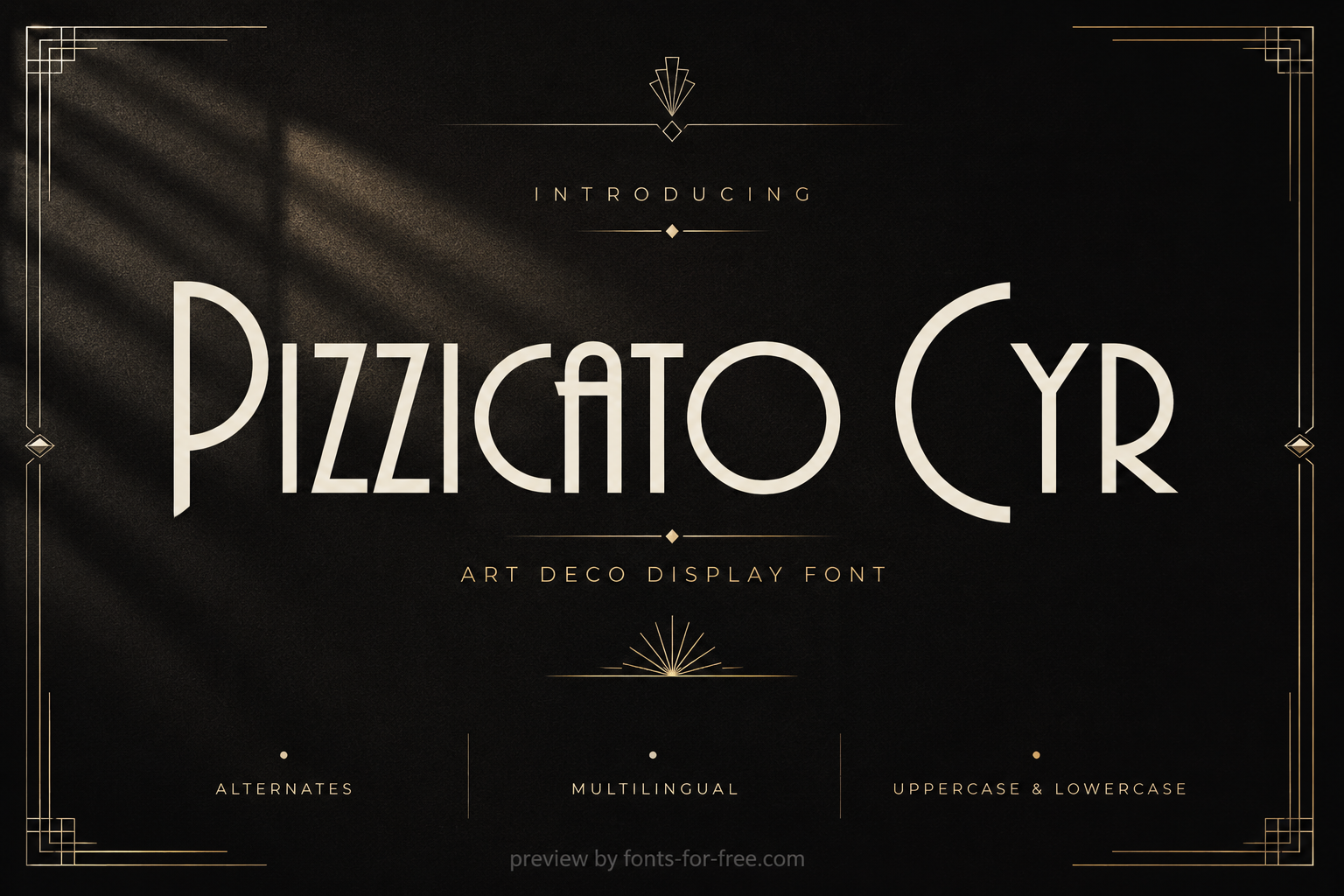
Pizzicato Cyr
Pizzicato Cyr is a decorative Art Deco display font by Dimka Fonts, distributed under the SIL Open Font License 1.1. Its letterforms are narrow, upright, and geometric, with thin monoline strokes, rounded bowls, tall verticals, and distinctive cut or open shapes that give the alphabet a theatrical early-modern rhythm. The font keeps a clean baseline and even spacing, so short titles remain readable despite its ornamental structure. Its refined, formal mood suits logos, poster headings, packaging, event graphics, editorial titles, invitations, and branding with a vintage or cinematic tone. Alternate and swash-style features support more varied headline compositions.